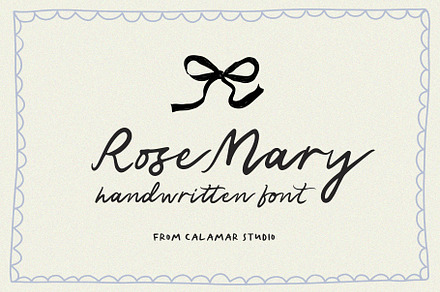
Rose Mary Handwritten Wedding Font
A handwritten wedding font with a gentle, unhurried hand and moderate slant, suited to invitation settings.
Wedding scripts fall on a spectrum from formal calligraphy to casual handwriting, and this sits toward the personal end without becoming informal.
- Alternates and ligatures
Ideal for
- Wedding invitations and stationery
- Event signage and menus
- Packaging and gift design
- Social and web graphics